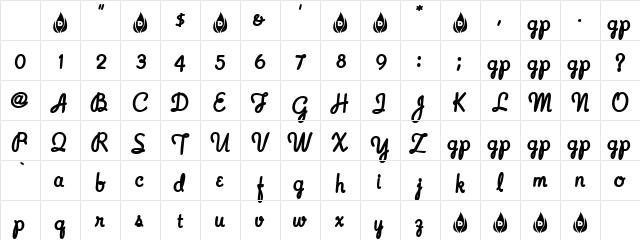
HickoryWind Regular Free Font
HickoryWind Regular
Design Context for HickoryWind
HickoryWind is a composed and adaptable typeface that performs quietly and consistently across a wide range of design contexts.